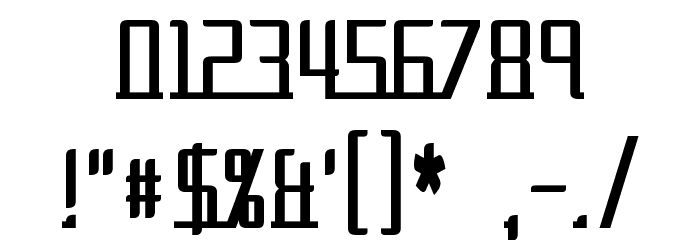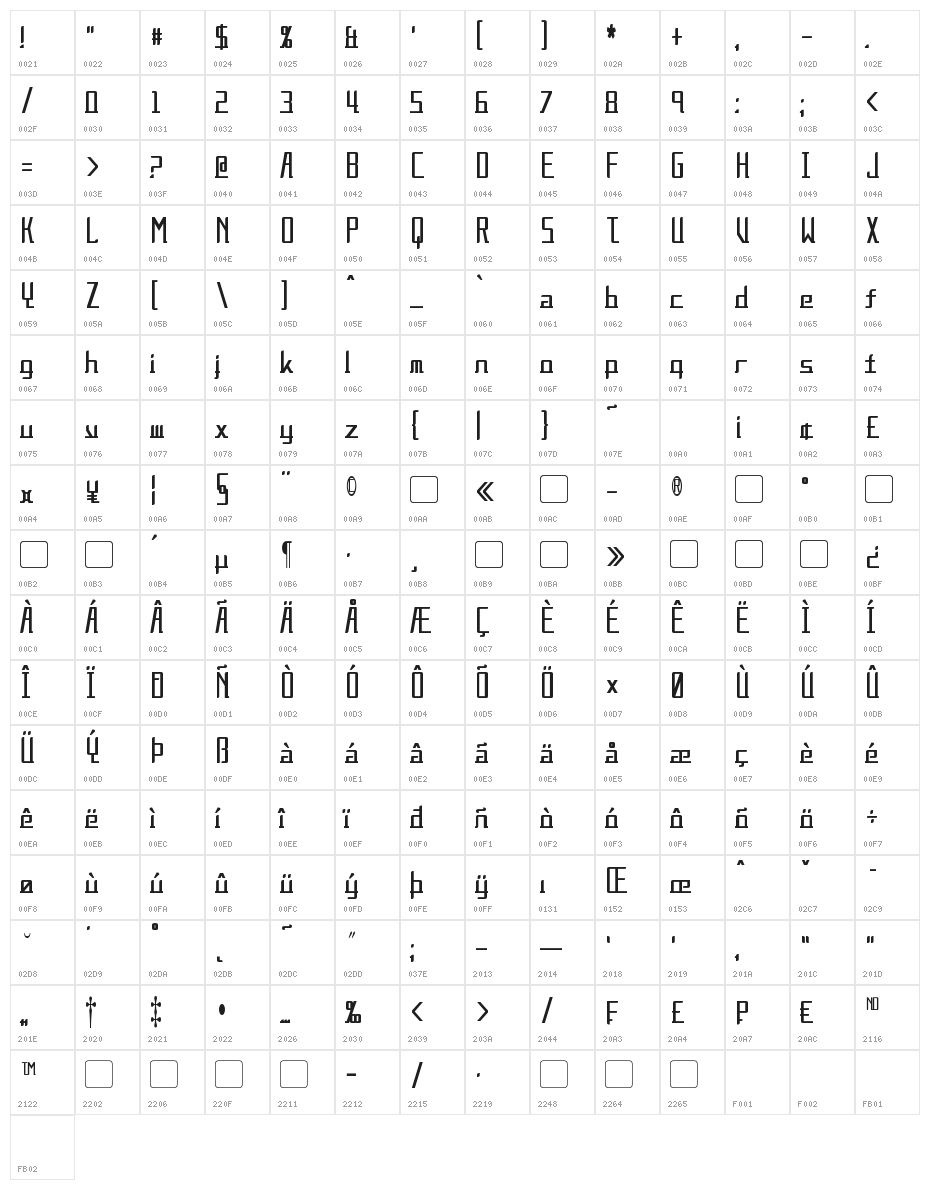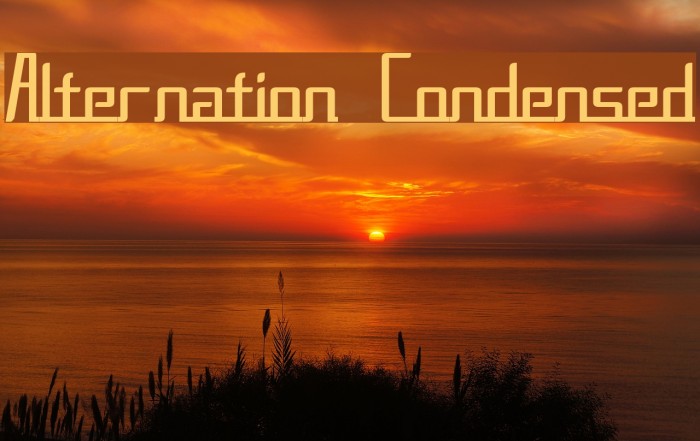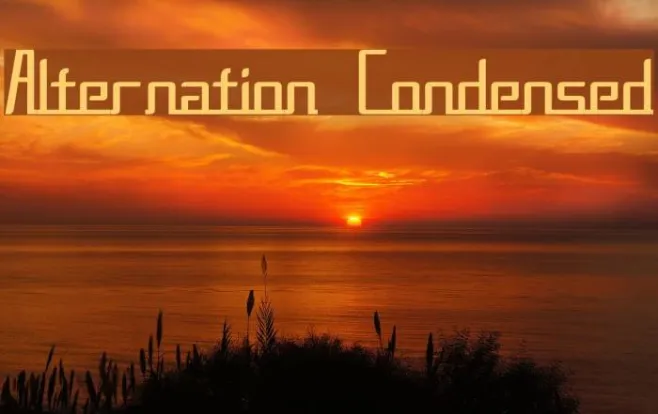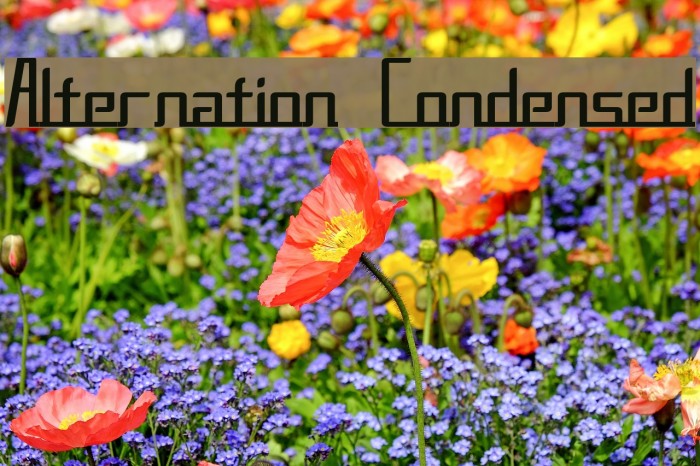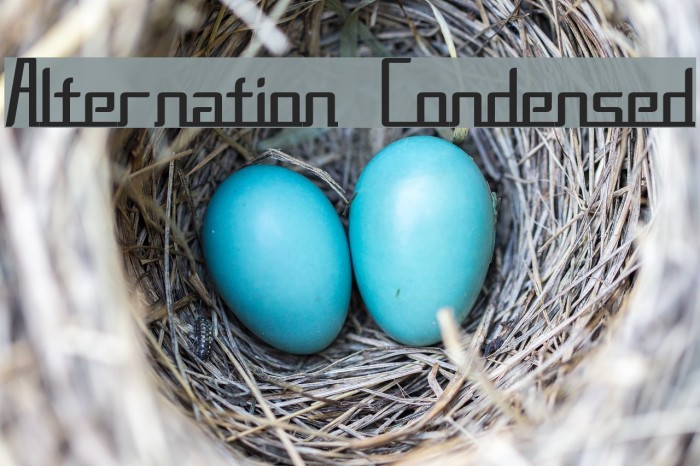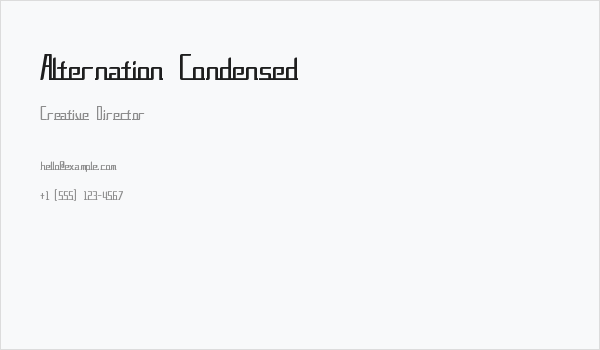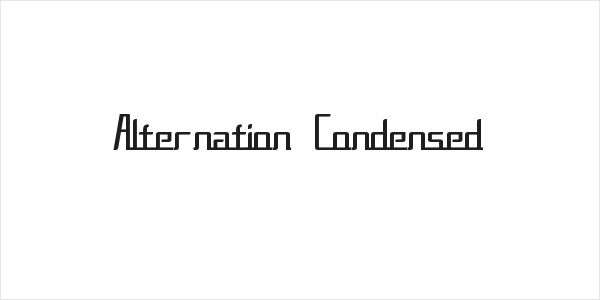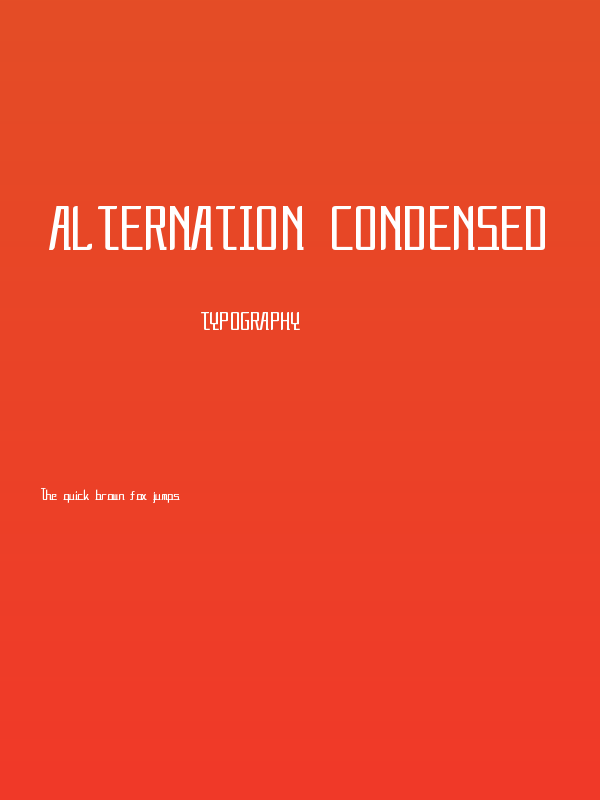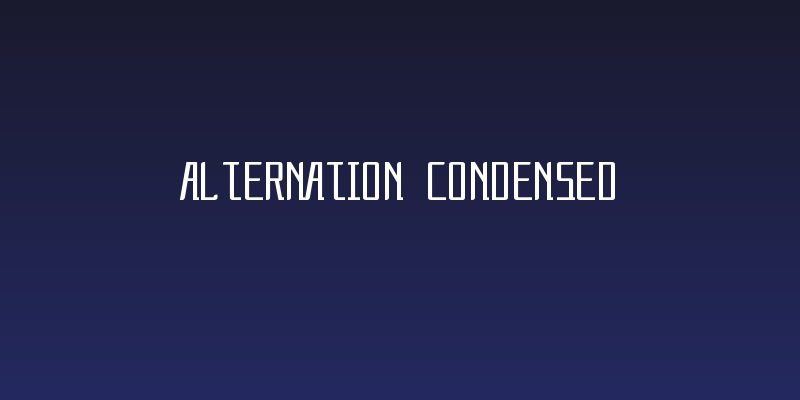
Alternation Condensed Font
Alternation Condensed Description
This font features a modern and geometric design with a condensed structure. The characters are tall and narrow, giving a sleek and streamlined appearance. The uppercase letters have a uniform height, while the lowercase letters maintain a consistent baseline with slight variations in height for visual interest. The numerals are distinct and align well with the overall style, ensuring readability. Special characters are integrated seamlessly, maintaining the font's cohesive look. The strokes are consistent in weight, providing a balanced and harmonious feel across all characters.
| Proposed Projects | Ideal for branding, posters, and editorial design where a modern and sleek aesthetic is desired. |